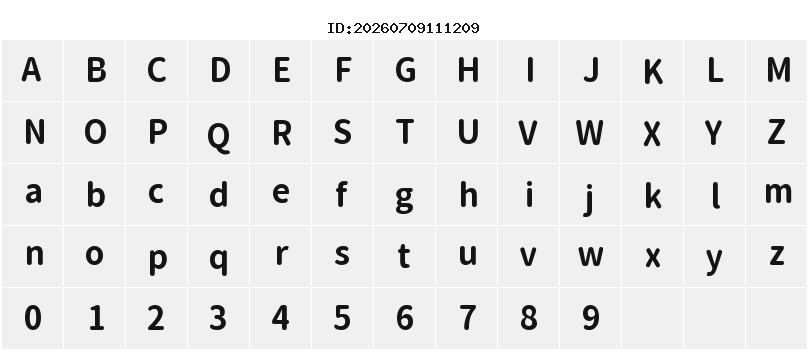
Resource Han Rounded CN Preview
• Font Name: Resource Han Rounded CN
• Font ID: Resource Han Rounded CN Bold 0.990
• Full Font Name: Resource Han Rounded CN Bold
• Version: 0.990
• PostScript Name: Resource-Han-Rounded-CN-Bold
• Character Count: 30887
• Designer: Cyano Hao (round all glyphs); Ryoko NISHIZUKA 西塚涼子 (kana, bopomofo & ideographs); Paul D. Hunt (Latin, Greek & Cyrillic); Sandoll Communications 산돌커뮤니케이션, Soo-young JANG 장수영 & Joo-yeon KANG 강주연 (hangul elements, letters & syllables); Dr. Ken Lunde (project architect, glyph set definition & overall production); Masataka HATTORI 服部正貴 (production & ideograph elements)
• Manufacturer: Cyano Hao
About Resource Han Rounded CN.ttf
Resource Han Rounded CN.ttf is a modern, elegant sans-serif font designed for ultimate readability and visual harmony. Perfect for branding, headlines, web design, and print materials.